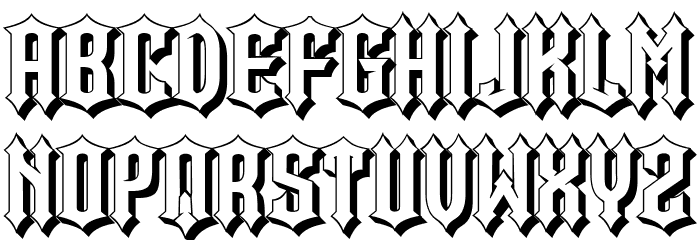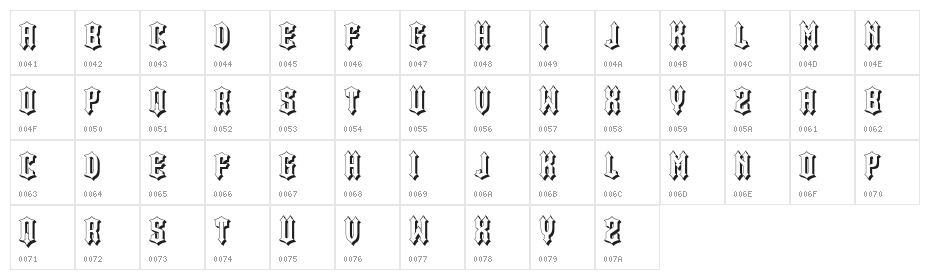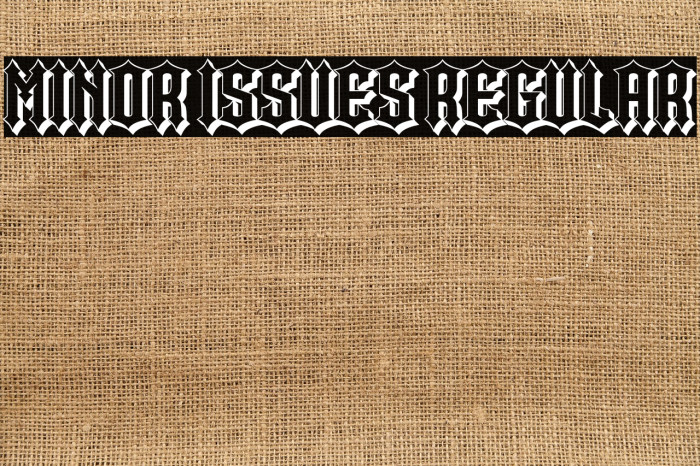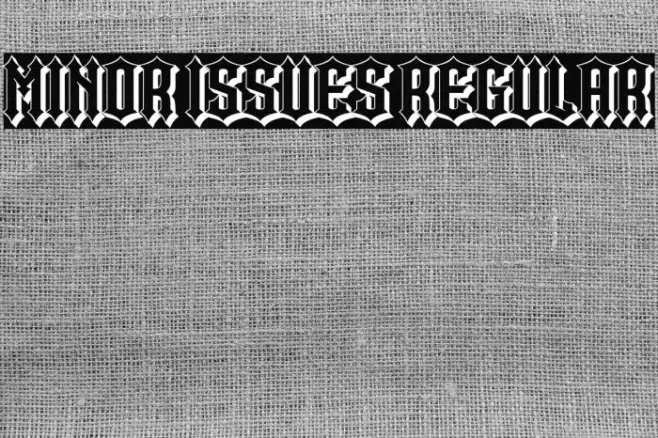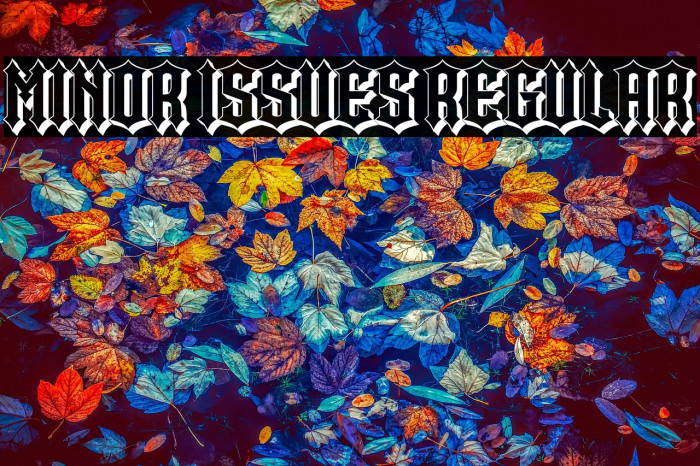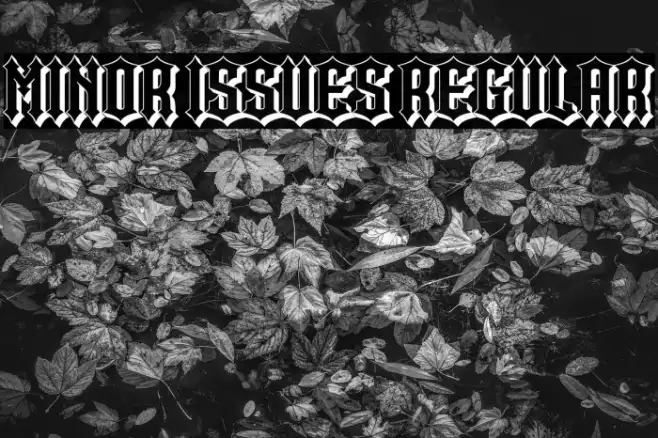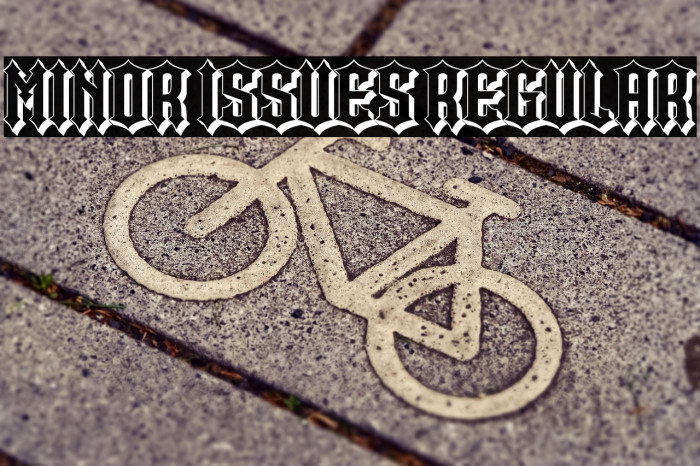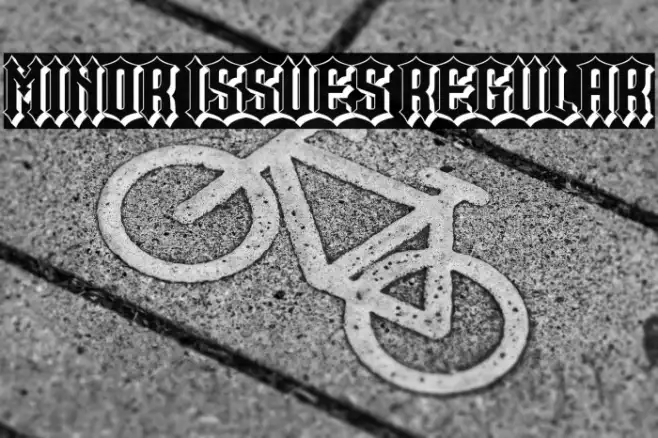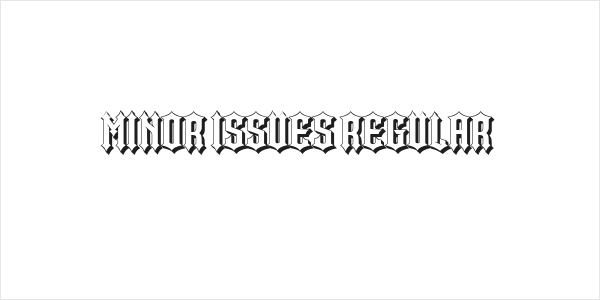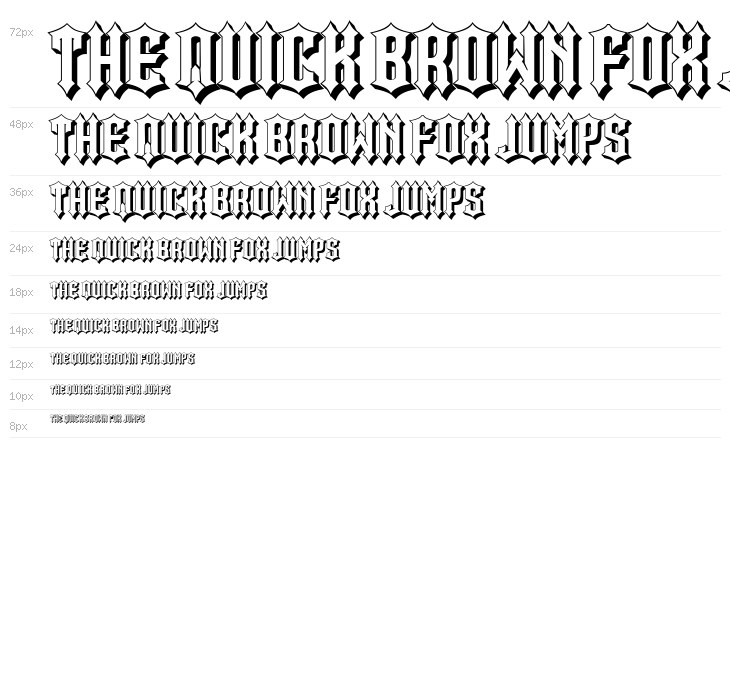
Minor Issues Regular Font
Minor Issues Regular Description
This font exhibits a bold and dramatic style, characterized by its intricate and ornate design. The letters are sharply defined with a strong emphasis on vertical strokes, giving it a gothic and medieval appearance. The angular and pointed serifs add to its decorative nature, making it stand out with a distinct personality. The font's elaborate detailing and high contrast between thick and thin strokes contribute to its striking visual impact. It is well-suited for projects that require a historical or vintage touch, capturing attention with its unique and artistic flair.
| Proposed Projects | Ideal for use in branding, posters, album covers, and any design requiring a vintage or historical aesthetic. |